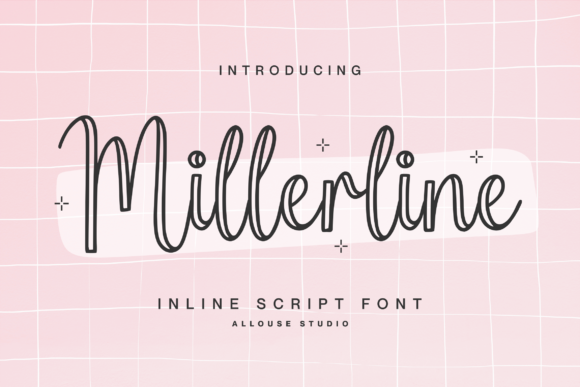
Journey into the world of elegance and sophistication with the Millerline Font - a timeless masterpiece crafted by allouse.studio. Designed to evoke a sense of nostalgia and charm, Millerline captures the essence of vintage artistry with its delicate, flowing strokes and beautiful curves.
Enter a realm of creativity where words dance with grace and style. Millerline is the ultimate choice for newsletter text, allowing you to craft messages that resonate with your audience. Its graceful lines and sweeping flourishes add a touch of refinement to your words, leaving a lasting impression on every reader.
With Millerline, you'll discover a font that transcends the ordinary, transforming simple text into works of art. Its versatility shines through in a myriad of design possibilities, from wedding invitations to branding materials. Let Millerline elevate your creations with its enchanting aura, captivating your audience with its unique charm.
Unleash your imagination and envision your words adorned with Millerline's timeless beauty. Whether you're crafting heartfelt letters, captivating marketing campaigns, or inspiring blog posts, Millerline will become your trusted companion, adding a touch of elegance to every project.
Experience the allure of Millerline today and let your words take flight. Embrace the vintage charm and modern sensibility that this extraordinary font embodies. Discover the limitless possibilities that await you as you embark on a creative journey with Millerline, transforming ordinary text into extraordinary expressions.